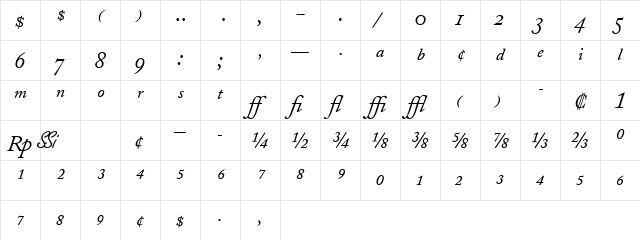
Caslon Pro SSi Italic
Design Context for Caslon Pro SSi Typeface
Caslon Pro SSi takes a measured approach to typography — its balanced proportions and neutral character make it a reliable workhorse for both digital and print work. The dynamic lean of this cut emphasises speed and emphasis in any layout.